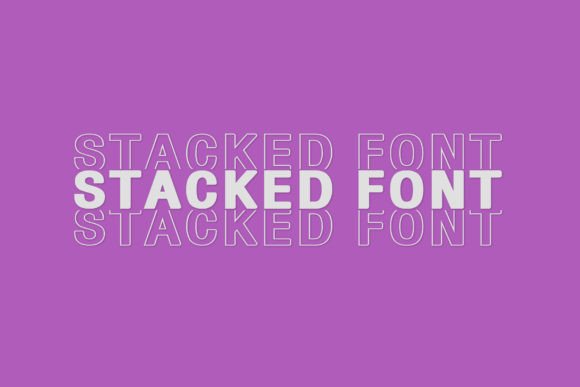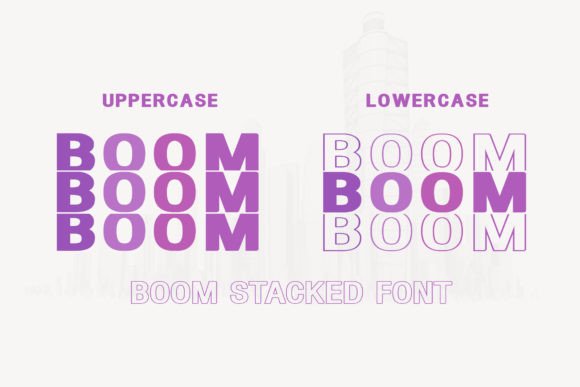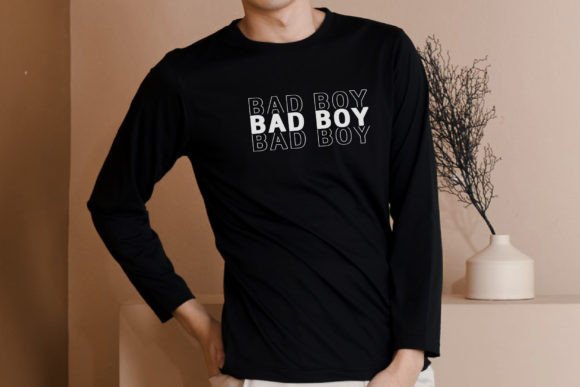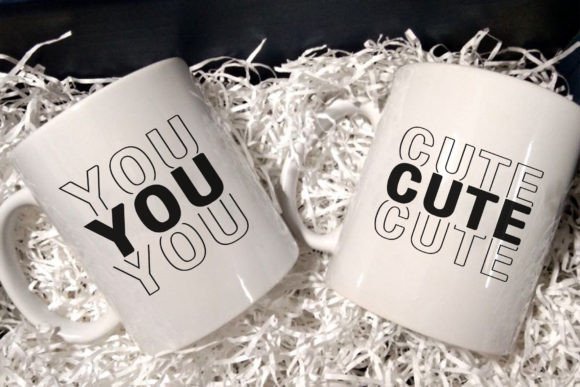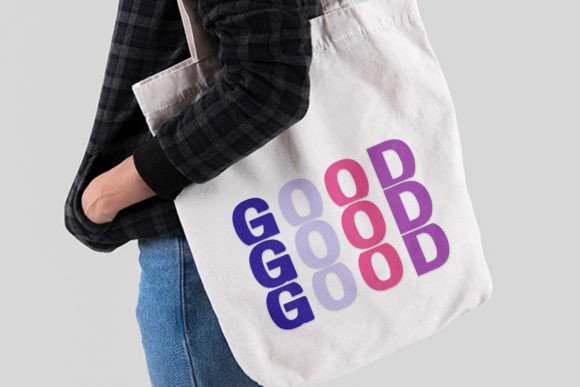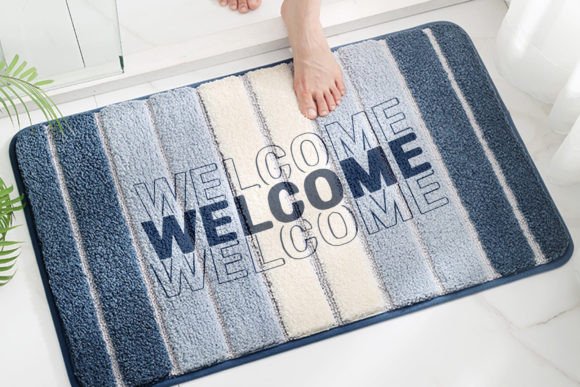
Introducing Boom Font: The Cool and Friendly Display Font You Need
Are you tired of using the same old fonts in your design projects? Do you want to add a fresh and contemporary touch to your creations? Look no further than Boom Font, a cool and friendly display font that’s perfect for any design you wish to create. In this article, we’ll take a closer look at Boom Font, its features, and how you can use it to make your projects outstanding.
What is Boom Font?
Boom Font is a modern display font that’s designed to make a statement. Its contemporary and fresh design makes it perfect for a wide range of design projects, from posters and flyers to logos and branding materials. The font is characterized by its clean lines, bold shapes, and friendly feel, making it an excellent choice for designers who want to add a touch of personality to their work.
Key Features of Boom Font
So, what makes Boom Font so special? Here are some of its key features:
- Contemporary design: Boom Font has a modern and fresh design that’s perfect for designers who want to stay on top of the latest trends.
- Clean lines and bold shapes: The font features clean lines and bold shapes that give it a strong and confident look.
- Friendly feel: Despite its bold design, Boom Font has a friendly feel that’s perfect for creating approachable and inviting designs.
- Versatile: Boom Font is a versatile font that can be used for a wide range of design projects, from posters and flyers to logos and branding materials.
How to Use Boom Font in Your Design Projects
Now that we’ve covered the features of Boom Font, let’s take a look at how you can use it in your design projects. Here are some ideas to get you started:
- Posters and flyers: Use Boom Font to create eye-catching posters and flyers that grab attention.
- Logos and branding materials: Create a bold and memorable logo for your brand using Boom Font.
- Social media graphics: Use Boom Font to create engaging social media graphics that stand out from the crowd.
- Web design: Add a touch of personality to your website with Boom Font, perfect for headings and titles.
Why Choose Boom Font?
With so many fonts available, why should you choose Boom Font? Here are just a few reasons:
- Unique design: Boom Font has a unique design that’s sure to make your projects stand out.
- Easy to read: Despite its bold design, Boom Font is easy to read, making it perfect for use in a wide range of design projects.
- Flexible: Boom Font is a flexible font that can be used in a variety of design projects, from print to digital.
In conclusion, Boom Font is a cool and friendly display font that’s perfect for any design project. Its contemporary and fresh design, clean lines, and bold shapes make it an excellent choice for designers who want to add a touch of personality to their work. With its versatility, ease of use, and unique design, Boom Font is sure to become a go-to font in your design arsenal. So why wait? Add Boom Font to your creative projects today and make them outstanding!